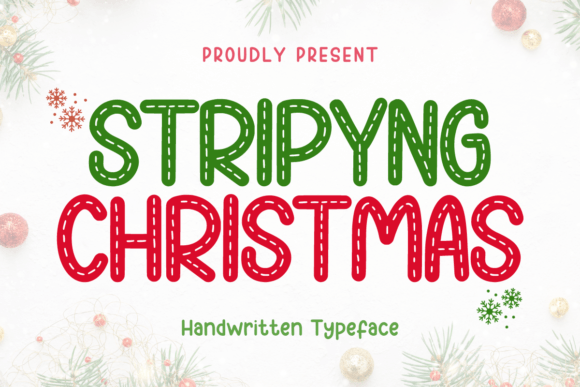
Unleash the festivity and joy of the holiday season with Stripying Christmas Font, an enchanting handwritten typeface that captures the spirit of Christmas with every stroke. Crafted by the renowned Masyafi Studio, Stripying Christmas Font belongs to the display font family, making it the perfect choice for titles, headings, and any text that demands attention.
Indulge in the charm and playfulness of this font, meticulously designed with a cute and fun style. Whether you're creating heartfelt Christmas cards, designing festive mugs and t-shirts, or adding a touch of holiday cheer to your social media posts, Stripying Christmas Font will elevate your designs with its captivating presence.
With its versatility, Stripying Christmas Font transcends the boundaries of traditional Christmas themes. Its playful nature allows it to shine in various design projects, from whimsical quotes and motivational posters to heartwarming greeting cards and eye-catching decorations.
Unleash your creativity and embrace the magic of Stripying Christmas Font. Its effortless charm and boundless versatility will add a joyful touch to your designs, spreading happiness and holiday spirit wherever it's used. Let Stripying Christmas Font be your creative companion, transforming your projects into unforgettable expressions of festive cheer.